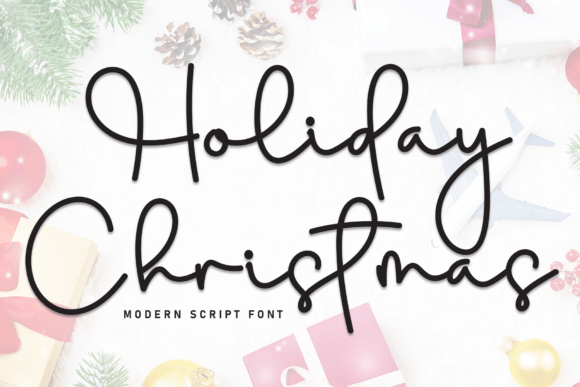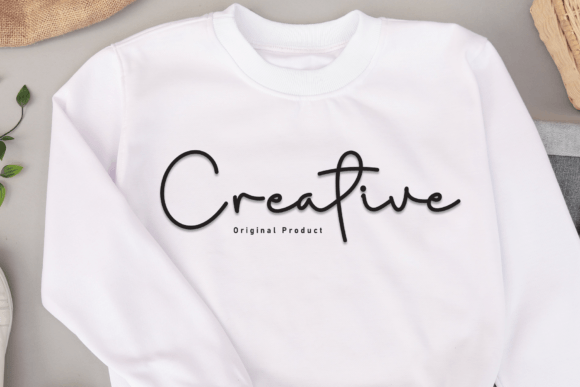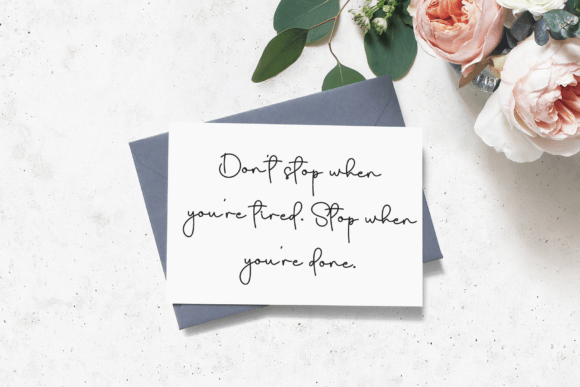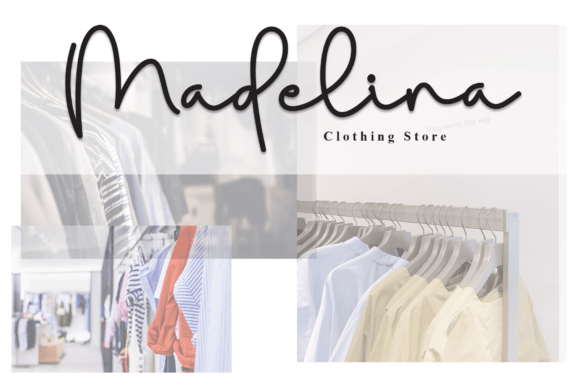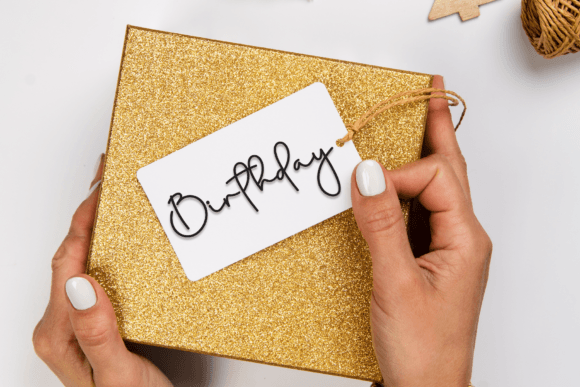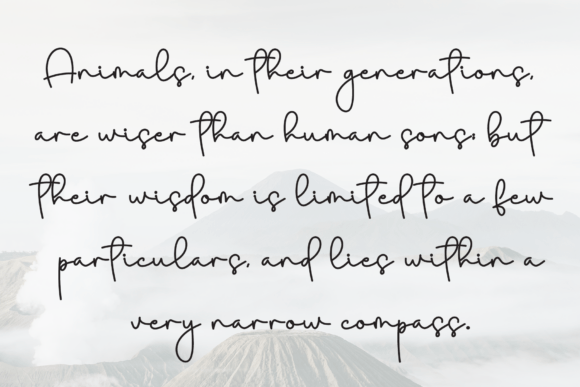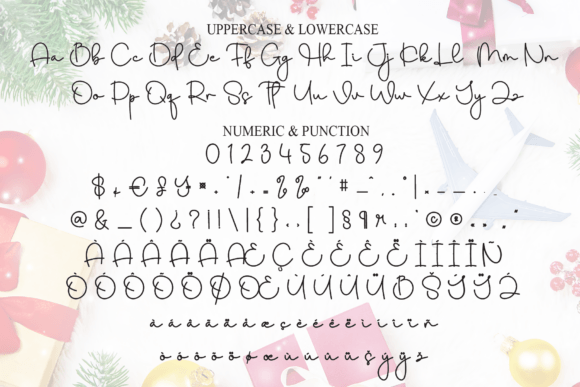
Deck the Halls with Holiday Cheer
As the snowflakes start to fall and the fireplace crackles to life, it’s the perfect time to get creative with your holiday projects. There’s something special about crafting handmade cards, gift tags, and decorations that capture the warmth and magic of the season. But, have you ever struggled to find the perfect font to convey that holiday spirit?
Enter the “Holiday Christmas” font, a beautiful handwritten script that embodies the essence of Christmas. This charming font is designed to add a personal touch to any holiday-themed project, from festive invitations to cozy gift wrap. For designers, the “Holiday Christmas” font is a valuable asset, offering a unique and eye-catching way to express the joy and wonder of the holiday season.
Holiday Christmas Font Key Features
- Font Family: Holiday Christmas Font is a unique, hand-drawn font designed specifically for holiday and Christmas-themed designs.
- Unique Characteristics: Features intricate, hand-drawn details and ornaments, making it ideal for adding a touch of festive elegance to designs.
- Character Set: Includes a comprehensive set of uppercase and lowercase letters, numbers, and punctuation marks, ensuring versatility in design applications.
Holiday Christmas Font Review
Overall, I found the Holiday Christmas Font to be a fun and festive addition to any design project. ✨ Its playful, cursive script style immediately evokes the spirit of the holiday season.
- The subtle, whimsical feel it adds to designs.
- ⚠️ The font may not be suitable for use in formal or professional settings, due to its casual, playful nature.
- ⚠️ Some characters may not display correctly in certain font sizes or styles, which can result in an inconsistent design.
In conclusion, I think the Holiday Christmas Font is a great choice for designers looking to add some festive flair to their projects. While it may have some limitations, its unique style and customization options make it a valuable addition to any design toolkit.
Compared to Holiday Christmas Font, Great Vibes has a more carefree and spontaneous feel, whereas Holiday Christmas Font is more traditional and festive. Use Great Vibes when you want to add a sense of playfulness and energy to your designs.
What is the recommended font size and style for using the Holiday Christmas Font?
The Holiday Christmas Font is designed to be used at font sizes ranging from 12pt to 48pt. For optimal readability, we recommend using the font at font sizes between 14pt and 24pt. As for font styles, the font includes a range of weights, from Light to Extra Bold, which can be used to create visual hierarchy and emphasis in your design.